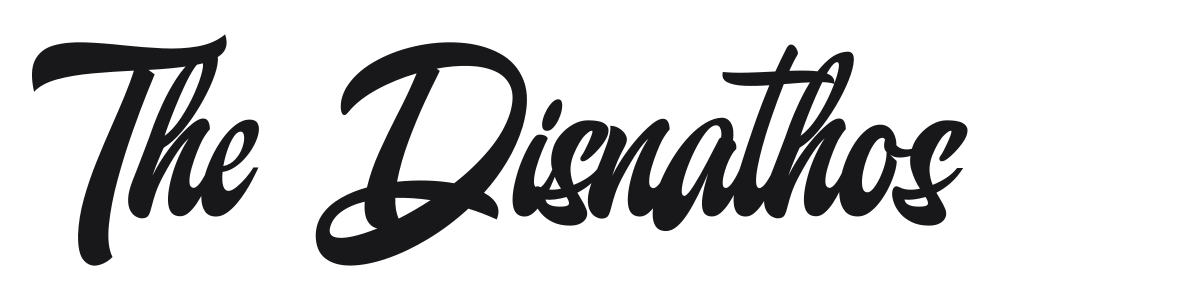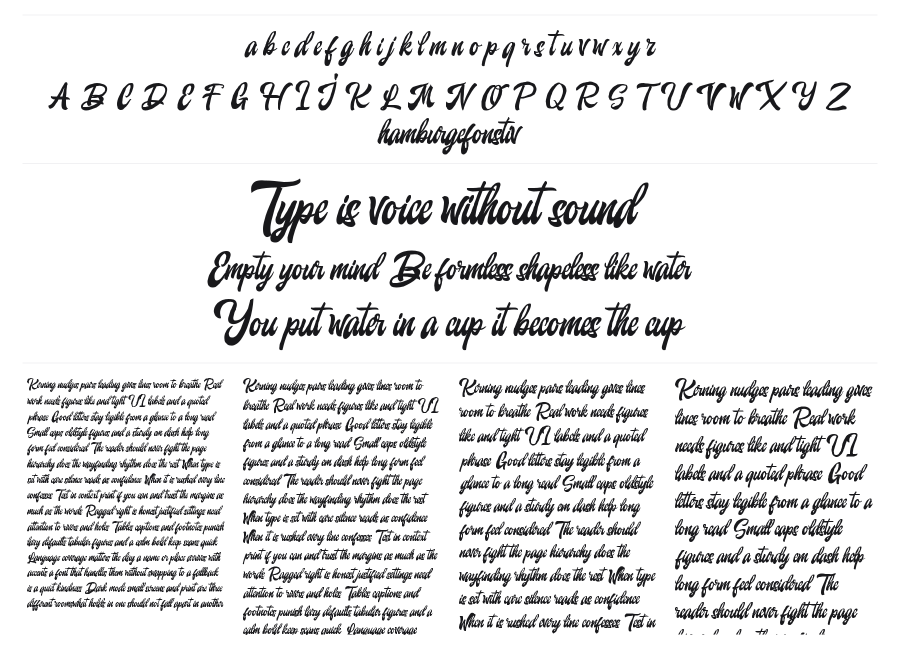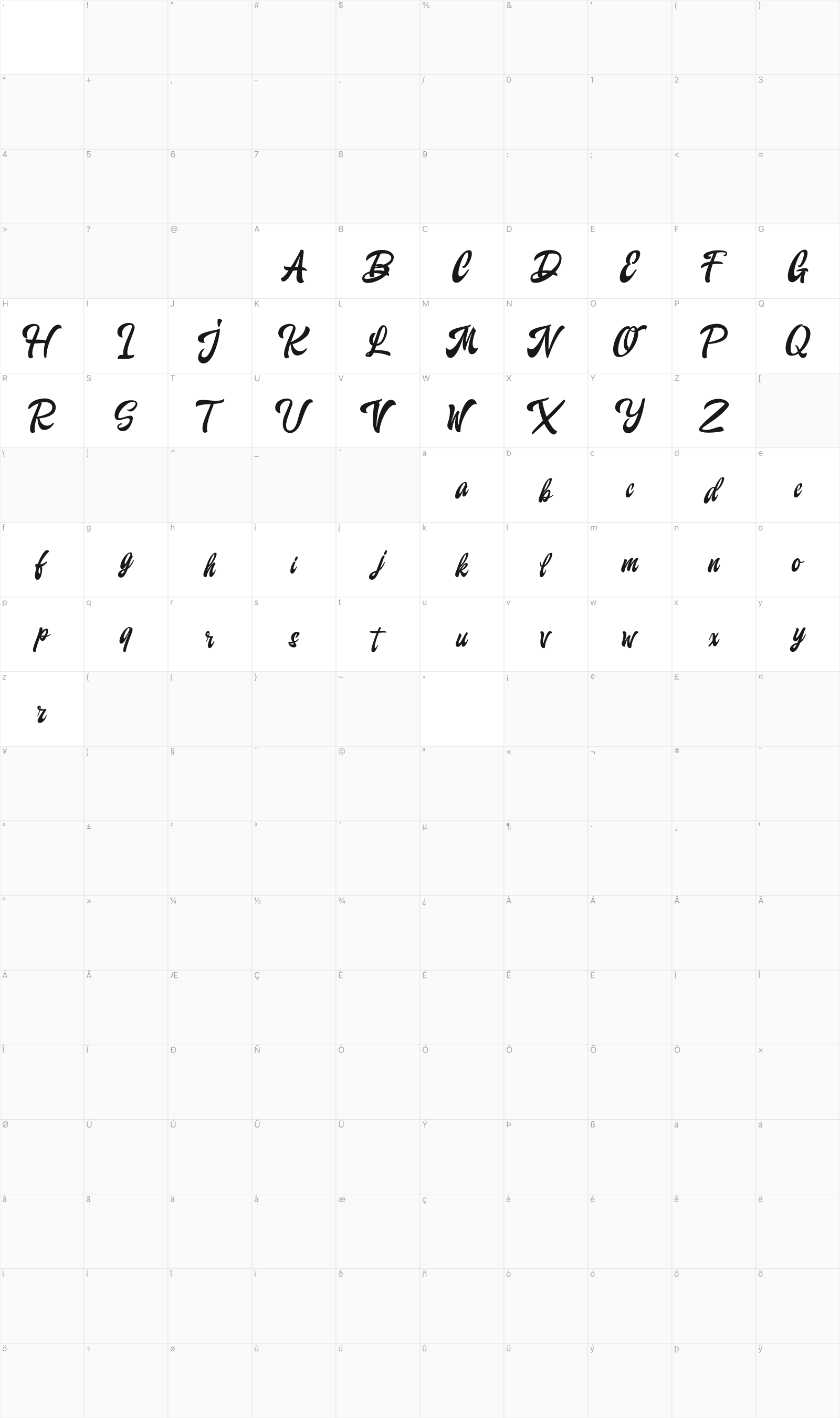
The Disnathos
The Disnathos is a bold brush script with the ink-soaked energy of mid-century hand lettering. Strong contrast between thick downstrokes and hairline upstrokes gives it a lively rhythm, while the connected flow keeps everything cohesive. It works best large, on packaging, logotypes, and anything that needs personality without looking precious.